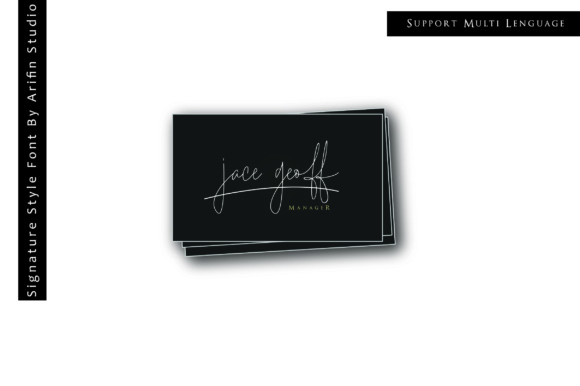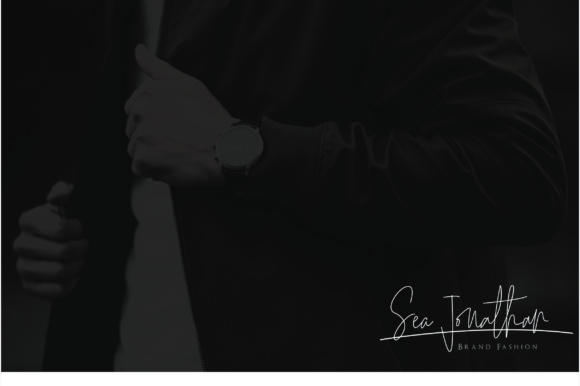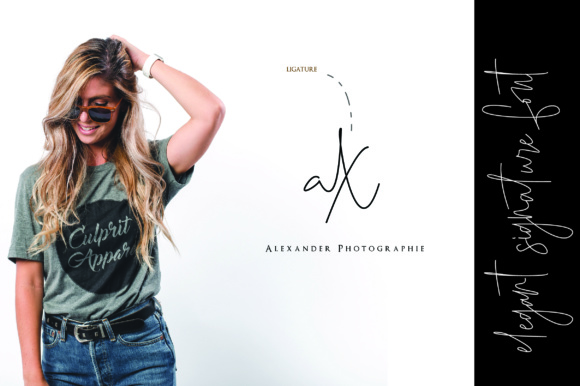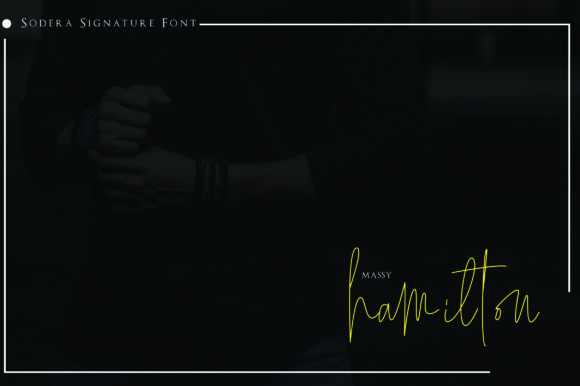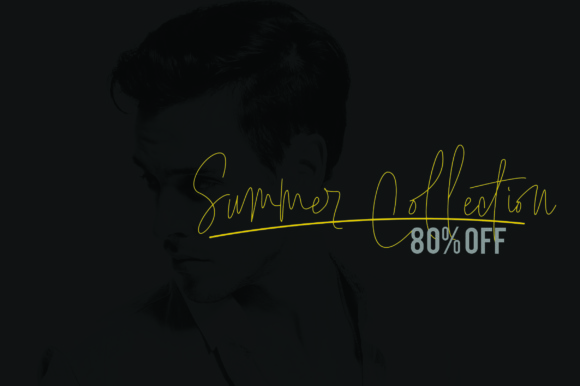
Sodera Font
About Sodera Font
The Sodera is a fashionable and super smooth handwriting script. It has thin, elegant letters which will give your design an feminine touch.